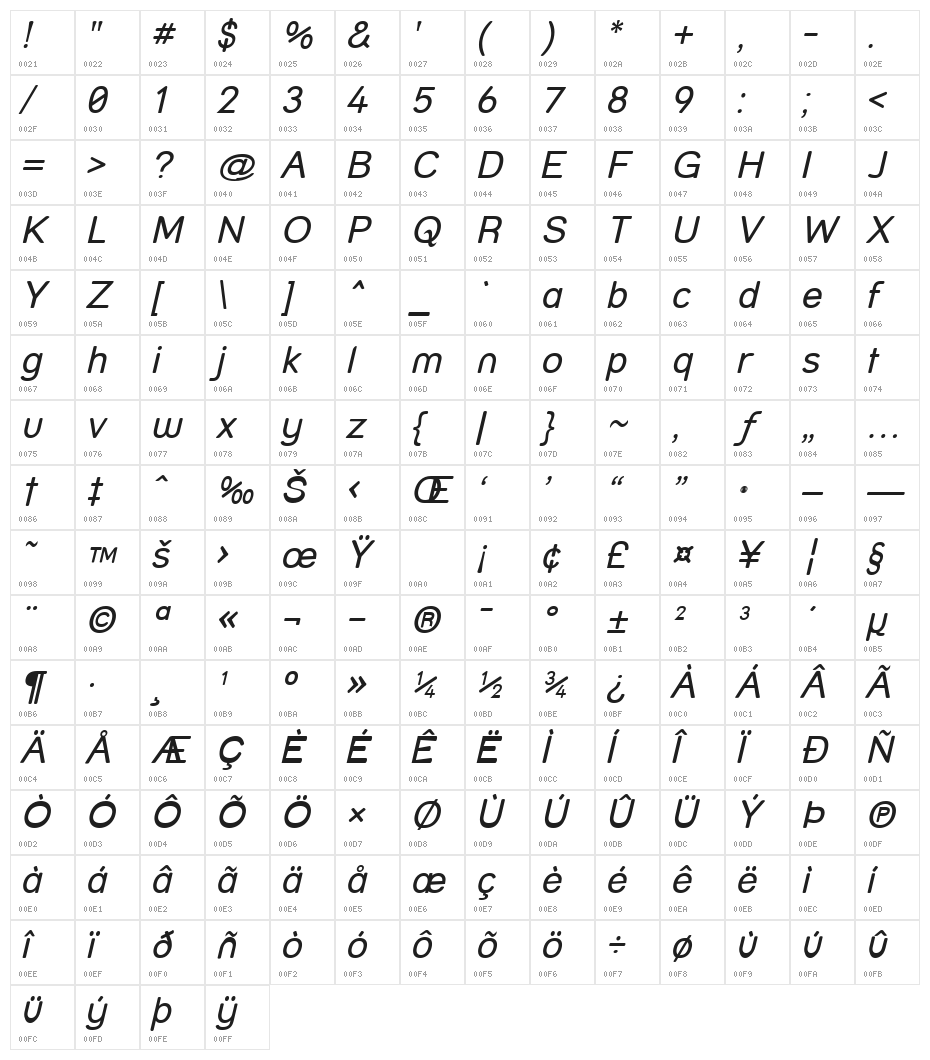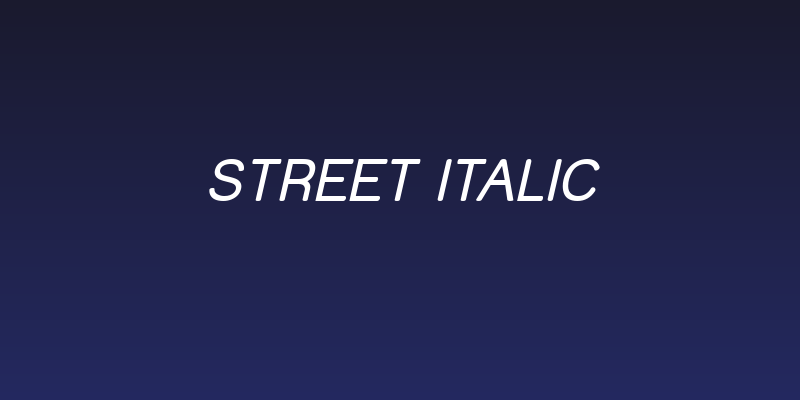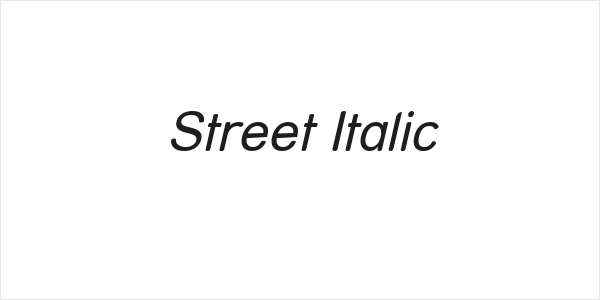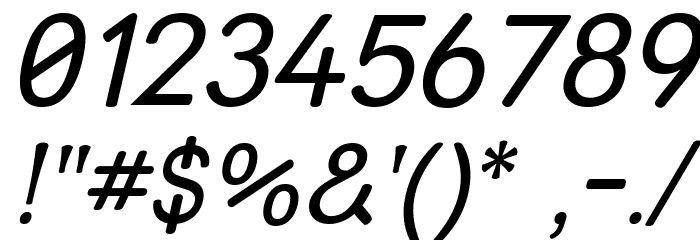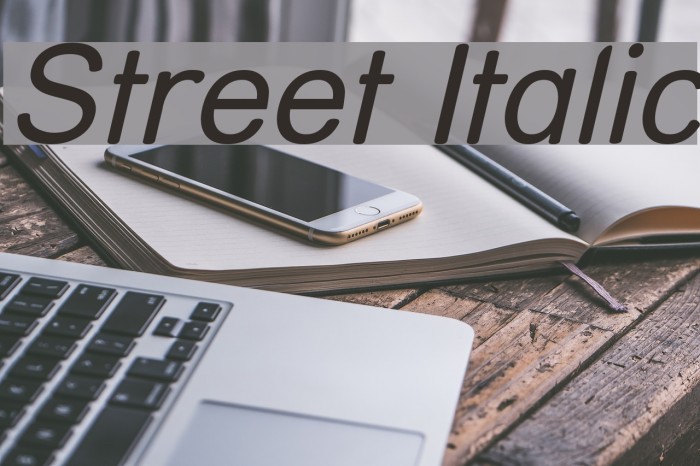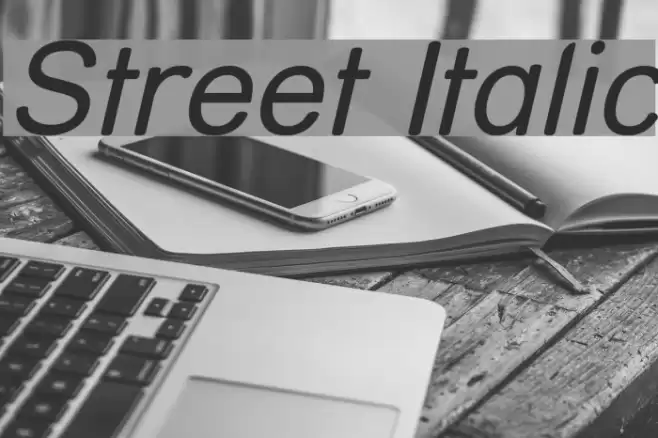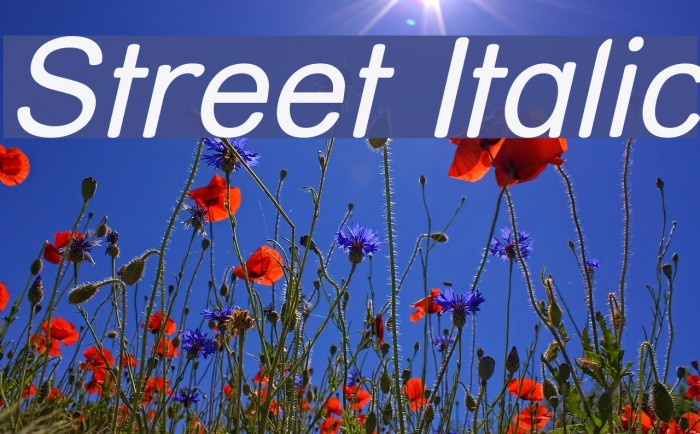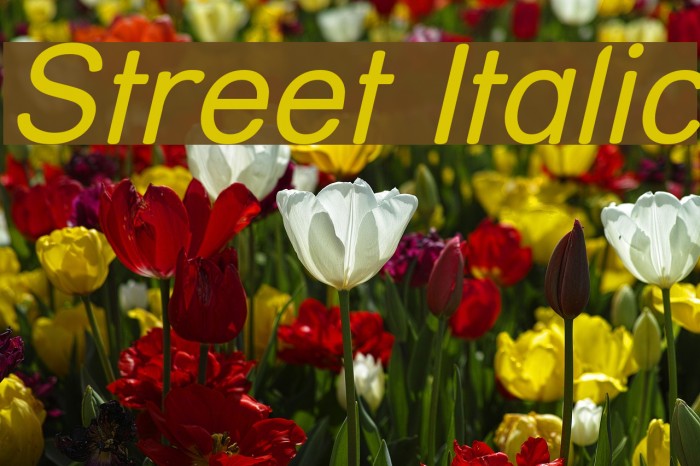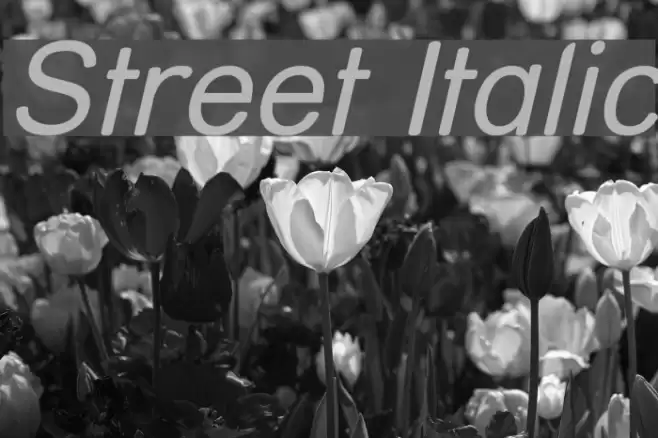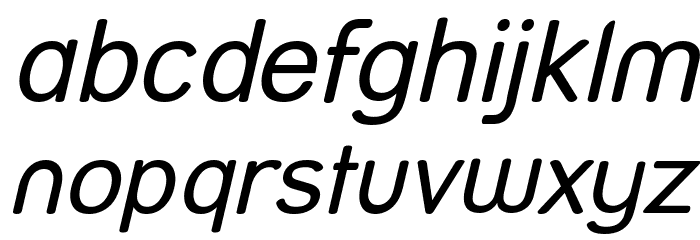
Street Italic Font
This font features a sleek, italicized style with a modern and dynamic appearance. The characters are slightly slanted, giving a sense of motion and fluidity. The strokes are consistent in weight, providing a uniform look across all characters. The font maintains a clean and professional appearance, suitable for a variety of design applications. Its legibility is enhanced by the clear distinction between each character, making it ideal for both digital and print media. The numerals and special characters are designed to match the overall style, ensuring a cohesive look in any text composition.
| Proposed Projects | Ideal for branding, advertising, and editorial design projects where a modern and dynamic look is desired. |